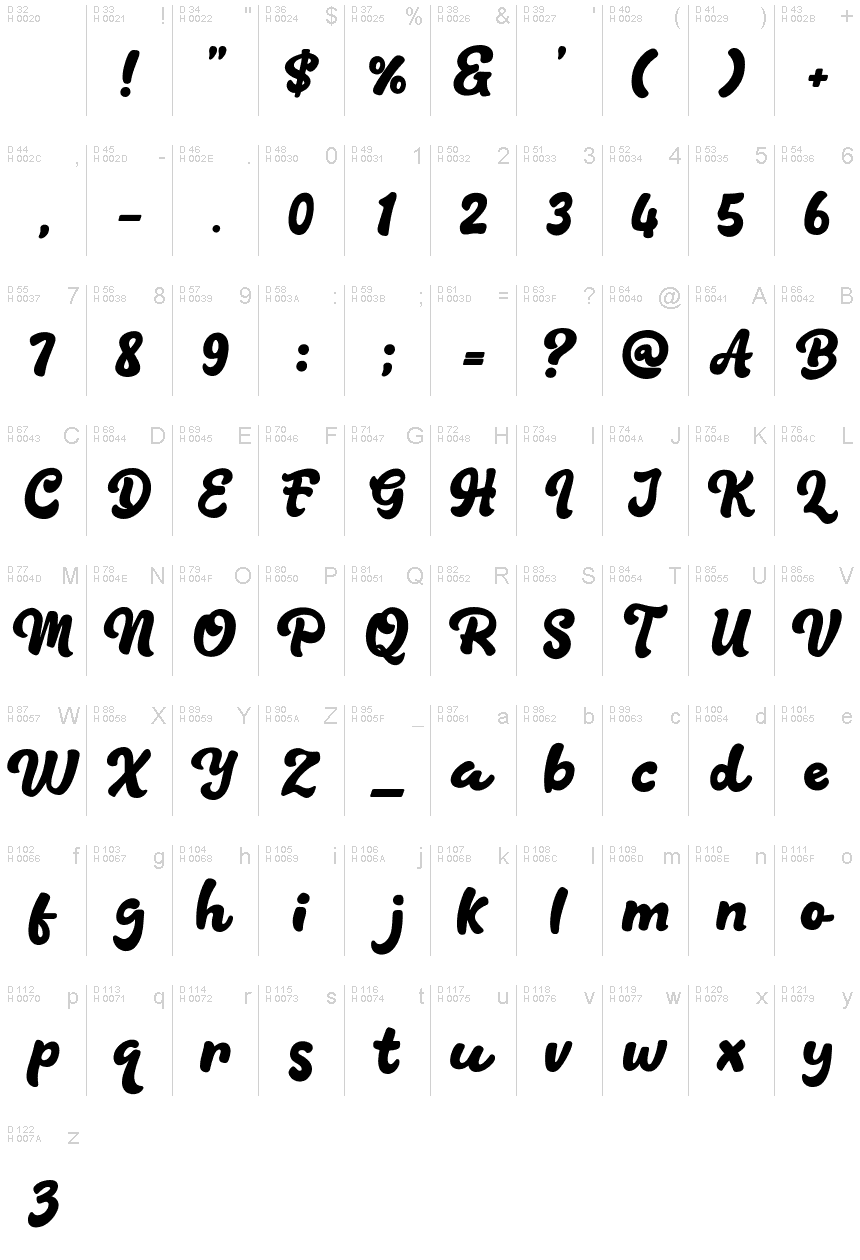
Blang Pidie
Introducing Blang Pidie - a bold, handwritten font designed by Khurasan. Perfect for creating eye-catching posters, titles and logos, this font is also great for crafting unique wedding invitations and adding a personal touch to craft projects.